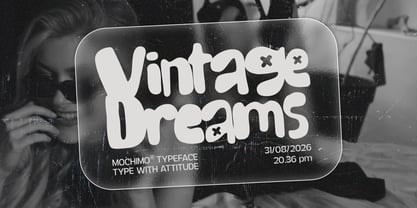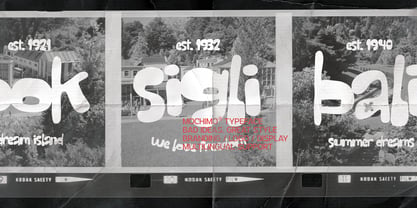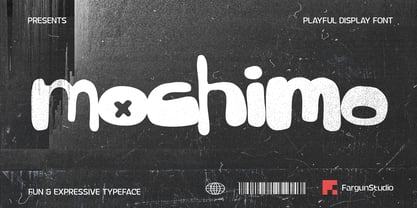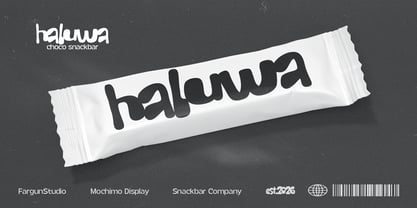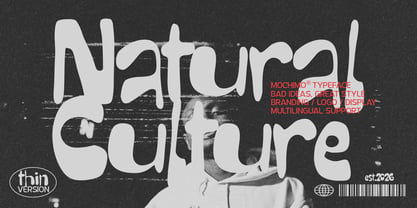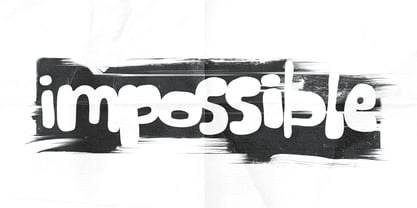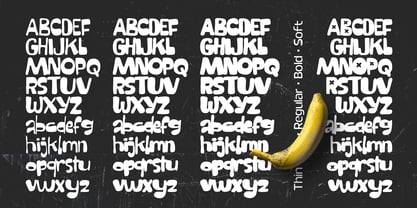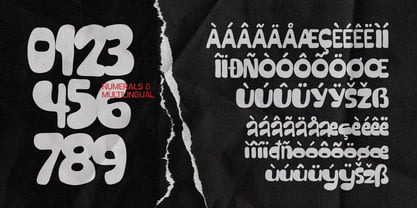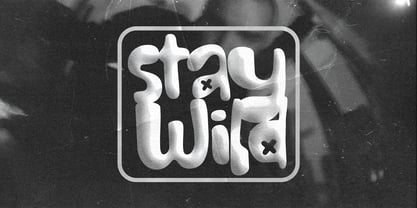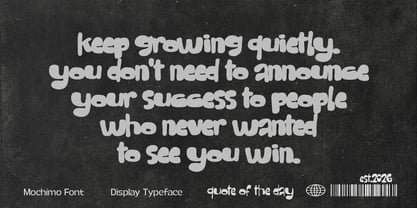
Mochimo
by Fargun Studio
The Mochimo Font Family was designed by Fajar Gunawan and published by Fargun Studio. Mochimo contains 8 styles and family package options. More about this family
Mochimo is a playful and expressive display font designed to bring instant personality to any creative project. With its chunky shapes, soft rounded curves, and bold organic letterforms, Mochimo delivers a fun, friendly, and highly distinctive visual character.
Its exaggerated proportions and unconventional details create a strong handmade feel while maintaining excellent visual impact. Whether used for bold headlines or eye-catching branding, Mochimo brings energy, charm, and a touch of playful rebellion to every composition.
Perfect for logos, branding, packaging, posters, social media graphics, children's designs, editorial projects, merchandise, advertising, and any project that needs a bold and memorable typographic voice.
Mochimo is made to stand out, have fun, and leave a lasting impression.
Designers: Fajar Gunawan
Foundry: Fargun Studio